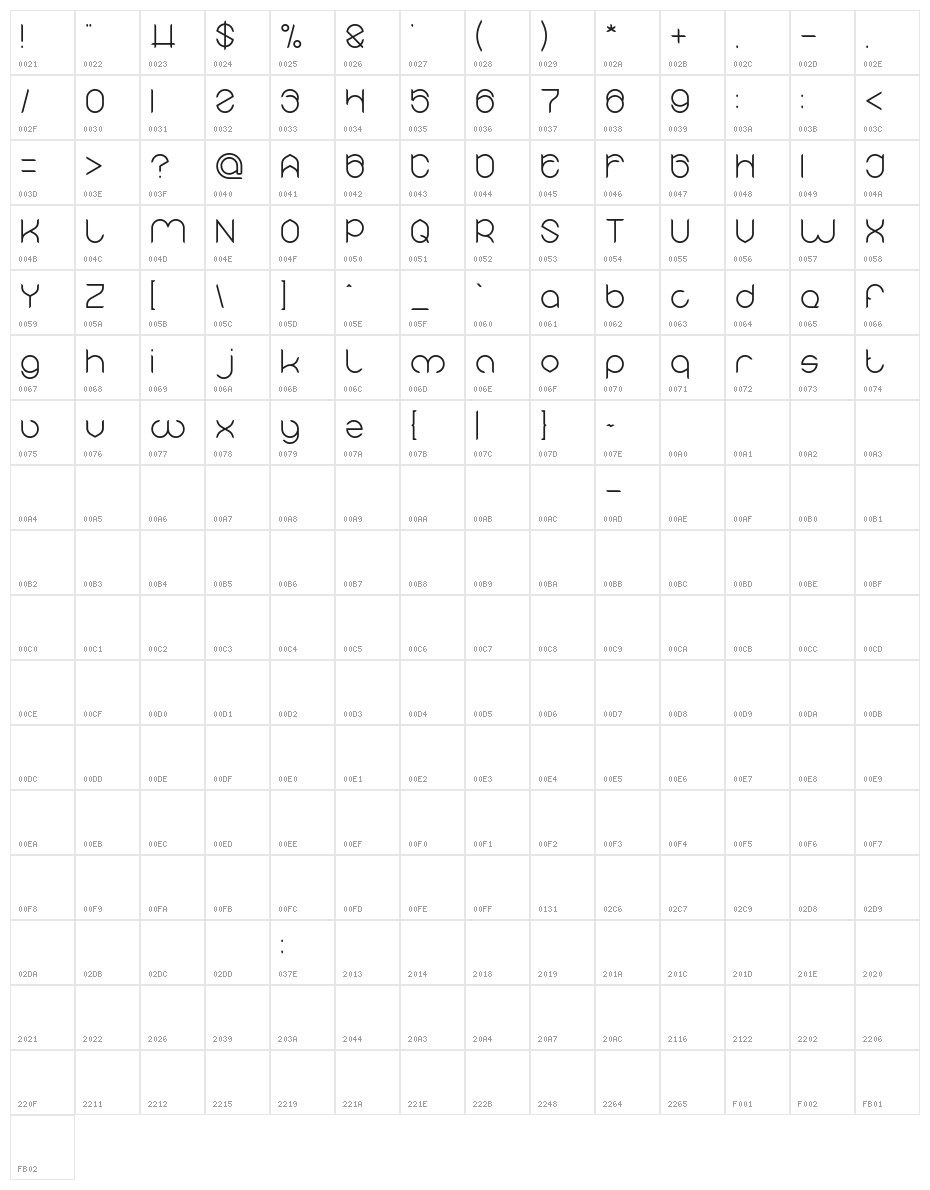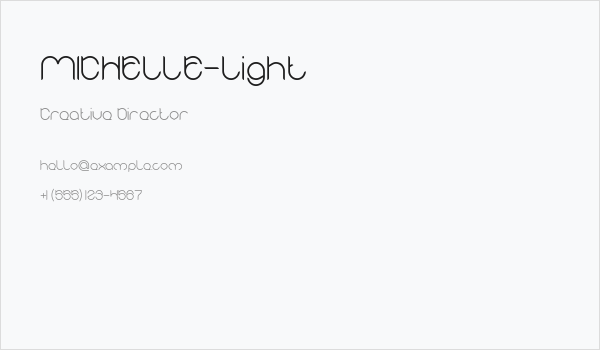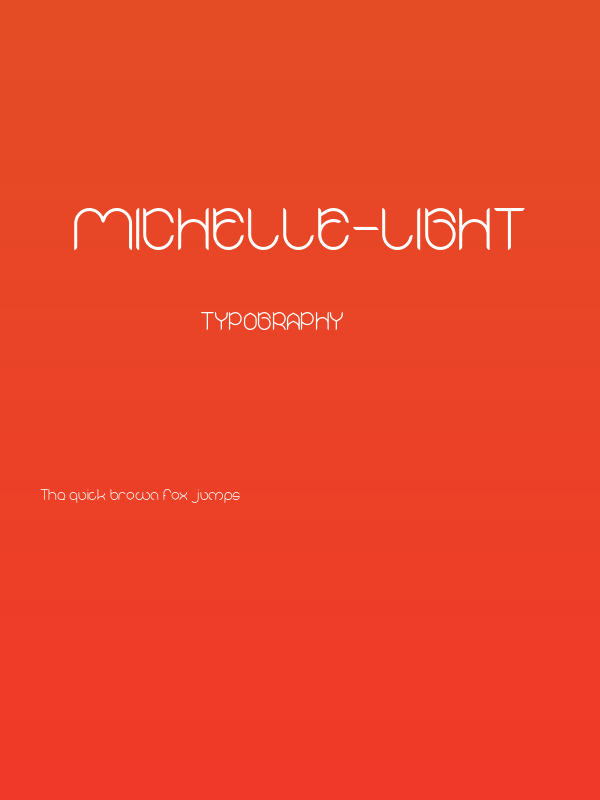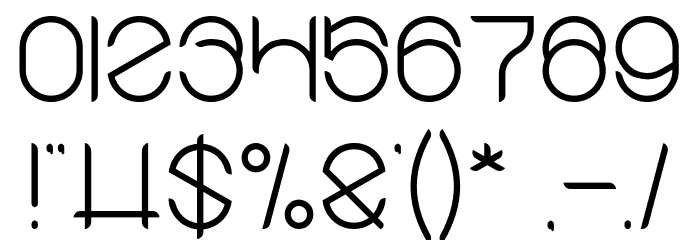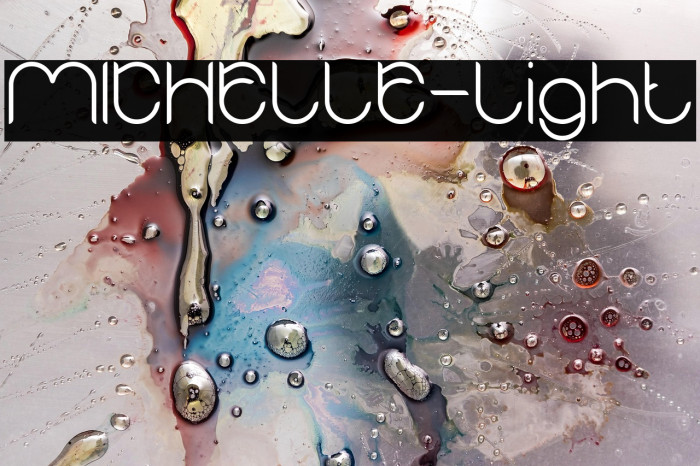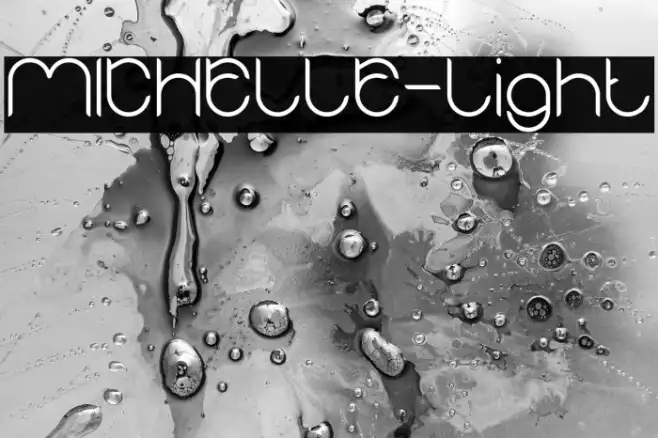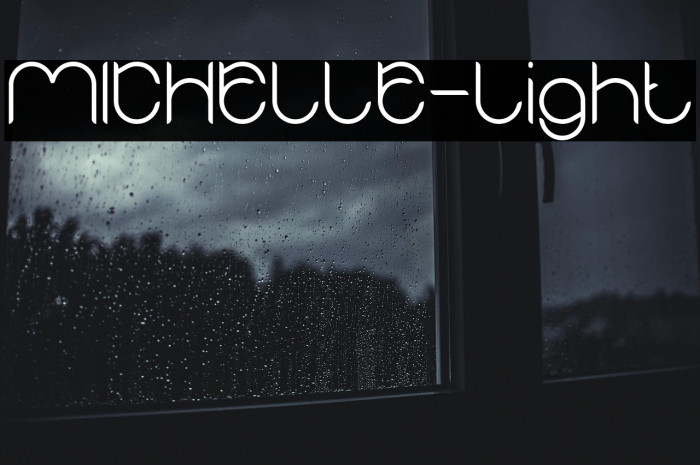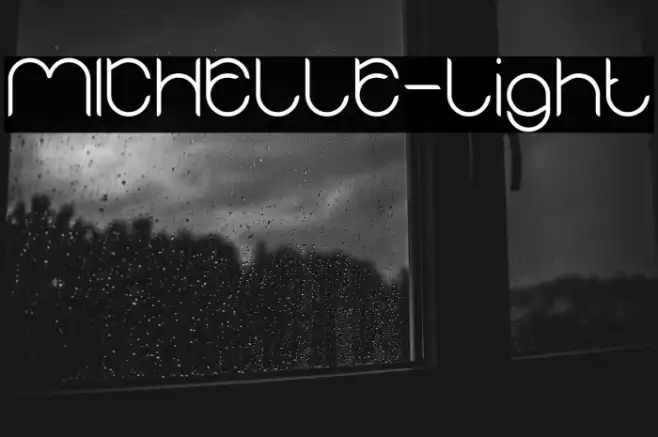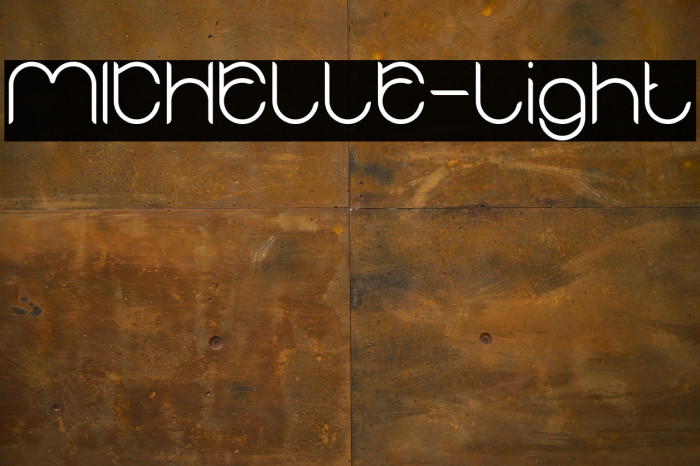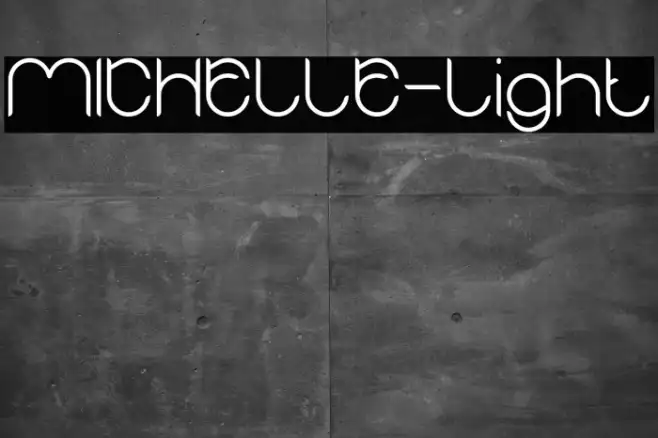
MICHELLE-Light Font
MICHELLE-Light Description
This font features a unique and modern design with a geometric and minimalist aesthetic. The characters are constructed with clean, rounded lines and a consistent stroke width, giving it a sleek and contemporary look. The uppercase and lowercase letters maintain a uniform style, with subtle variations that add visual interest. The numerals and special characters are designed to complement the alphabet, maintaining the same geometric and rounded characteristics. This font's overall appearance is both stylish and functional, making it suitable for a variety of design applications.
| Proposed Projects | Ideal for branding, logo design, modern web design, and minimalist print materials. |